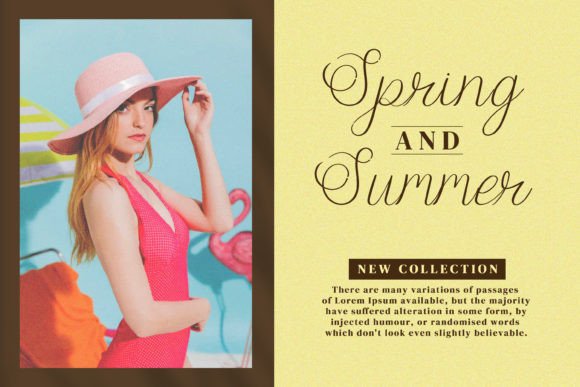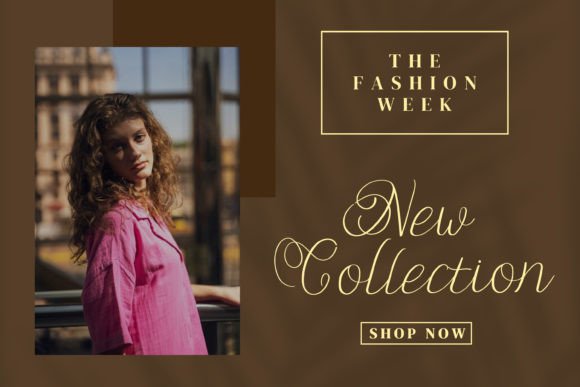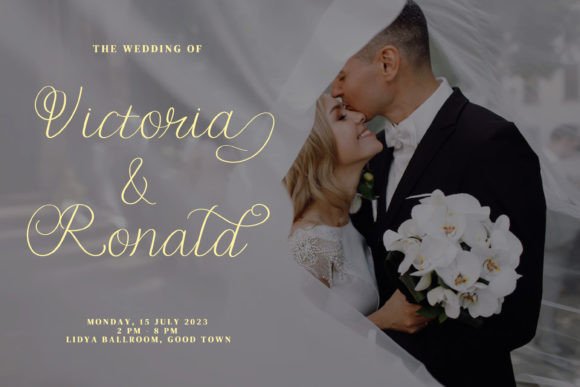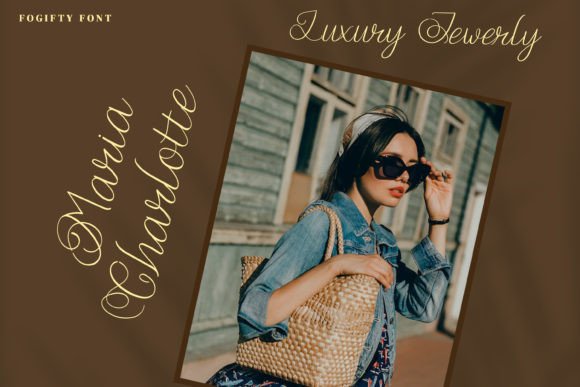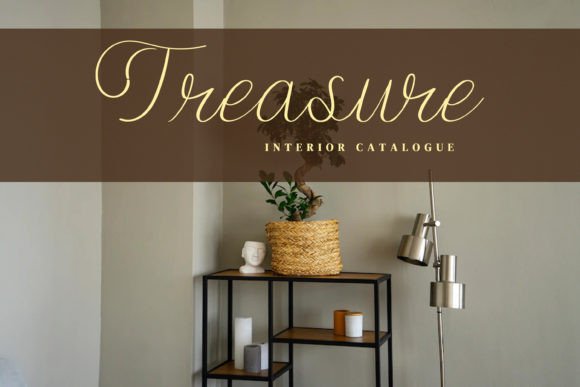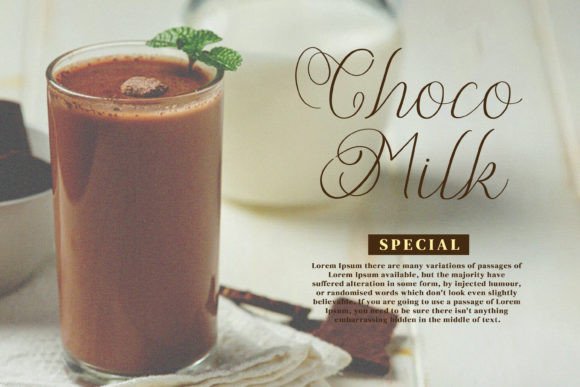
Fogifty Font: Elevate Your Designs with Luxury and Elegance
Fogifty is a stylish and modern handwritten script font that has been making waves in the design community. Its dainty characters are perfect for adding a luxury spark to your designs, making it a go-to choice for designers and crafters looking to elevate their work. In this article, we’ll dive into the world of Fogifty Font, exploring its features, benefits, and uses, as well as provide tips on how to make the most of this beautiful font.
The Story Behind Fogifty Font
Fogifty Font is a creation of [Font Designer/Foundry], a team of skilled typographers and designers dedicated to crafting unique and high-quality fonts. With a passion for elegance and sophistication, they designed Fogifty to be a versatile and luxurious script font that would add a touch of refinement to any design project.
What Makes Fogifty Font Special?
Fogifty Font boasts a range of features that set it apart from other script fonts on the market. Here are just a few reasons why designers and crafters are falling in love with Fogifty:
- Dainty Characters: Fogifty’s characters are meticulously crafted to be delicate and refined, making it perfect for designs that require a touch of elegance.
- Modern Handwritten Style: Fogifty’s handwritten style is both modern and classic, making it suitable for a wide range of design projects, from wedding invitations to luxury branding.
- Luxury Appeal: Fogifty’s sophisticated and refined aesthetic makes it perfect for designers looking to add a touch of luxury to their work.
- Versatility: Fogifty is a versatile font that can be used for a variety of design projects, including headings, titles, and short paragraphs of text.
Uses for Fogifty Font
Fogifty Font is perfect for a wide range of design projects, including:
- Wedding Invitations and Stationery: Add a touch of elegance and sophistication to your wedding invitations, save-the-dates, and other stationery with Fogifty.
- Luxury Branding: Use Fogifty to create luxurious brand identities, including logos, business cards, and letterheads.
- Packaging Design: Elevate your packaging design with Fogifty’s refined and sophisticated aesthetic.
- Digital Design: Use Fogifty in digital designs, such as social media graphics, website headers, and email newsletters.
Tips for Using Fogifty Font
To make the most of Fogifty Font, here are a few tips to keep in mind:
- Pair with a Sans-Serif Font: Pair Fogifty with a sans-serif font to create a beautiful contrast and add visual interest to your design.
- Use for Headings and Titles: Fogifty is perfect for headings and titles, so use it to add a touch of elegance and sophistication to your design.
- Experiment with Colors: Fogifty looks stunning in a range of colors, so experiment with different hues to find the perfect fit for your design.
Fogifty Font is a stylish and modern handwritten script font that is perfect for designers and crafters looking to add a touch of luxury and elegance to their work. With its dainty characters, modern handwritten style, and versatility, Fogifty is a must-have font for any design project. Whether you’re creating wedding invitations, luxury branding, or packaging design, Fogifty is sure to elevate your work and leave a lasting impression.